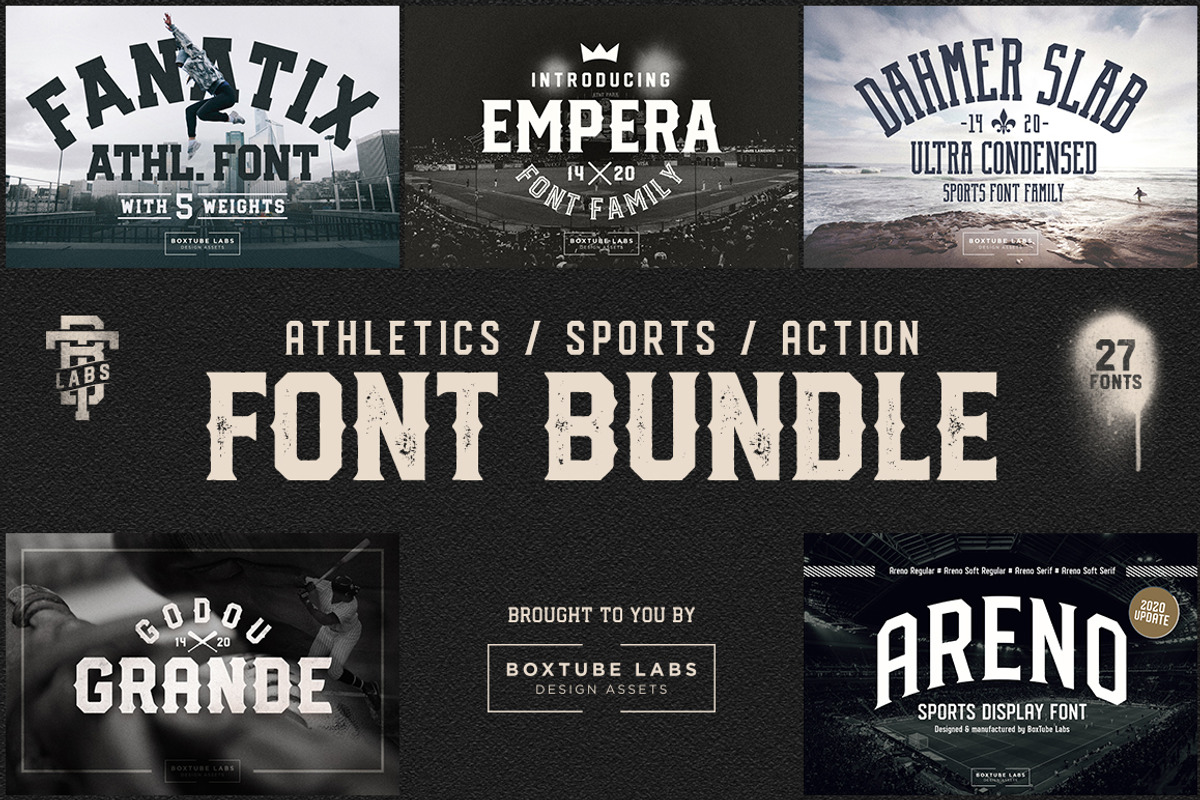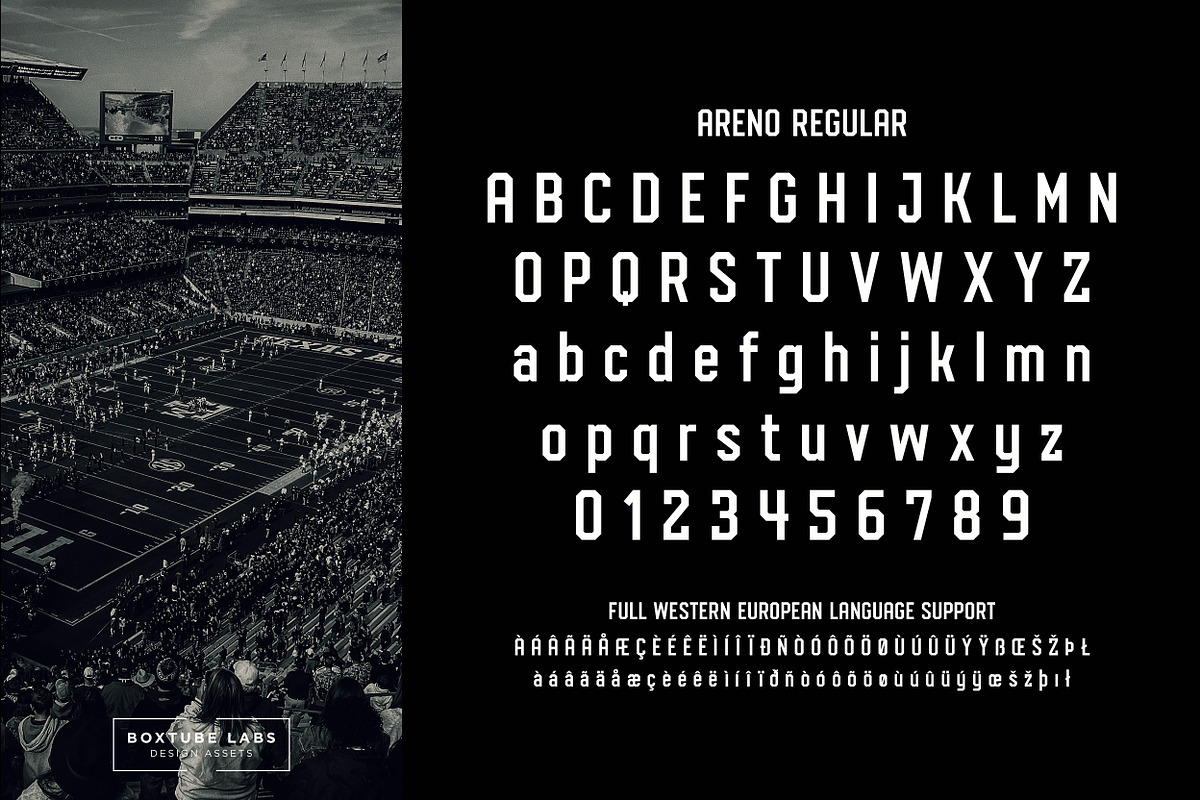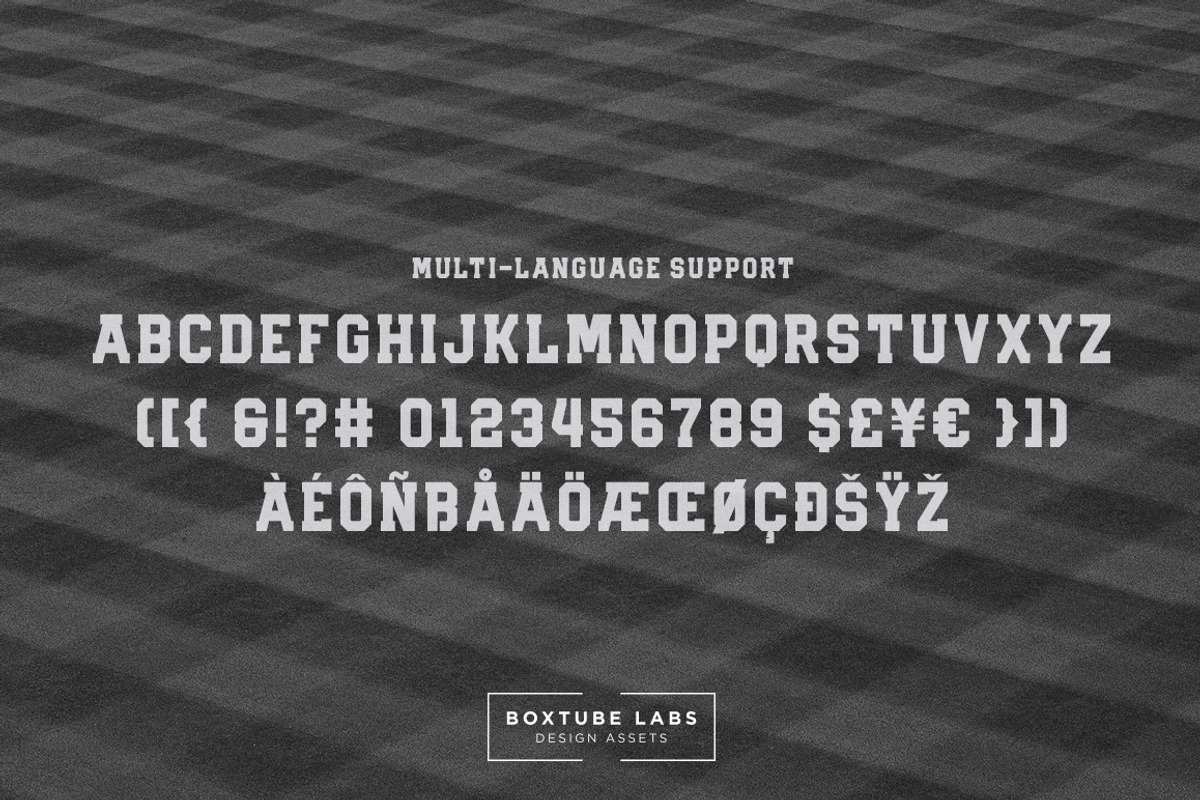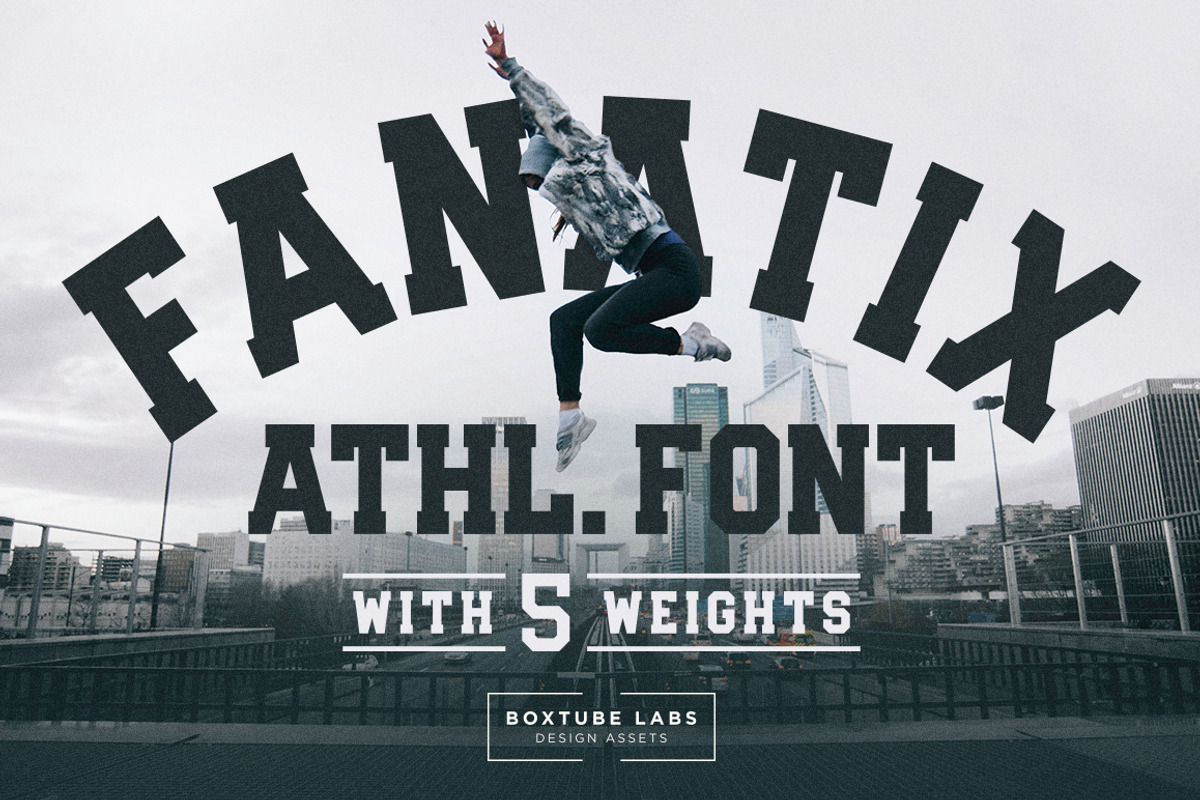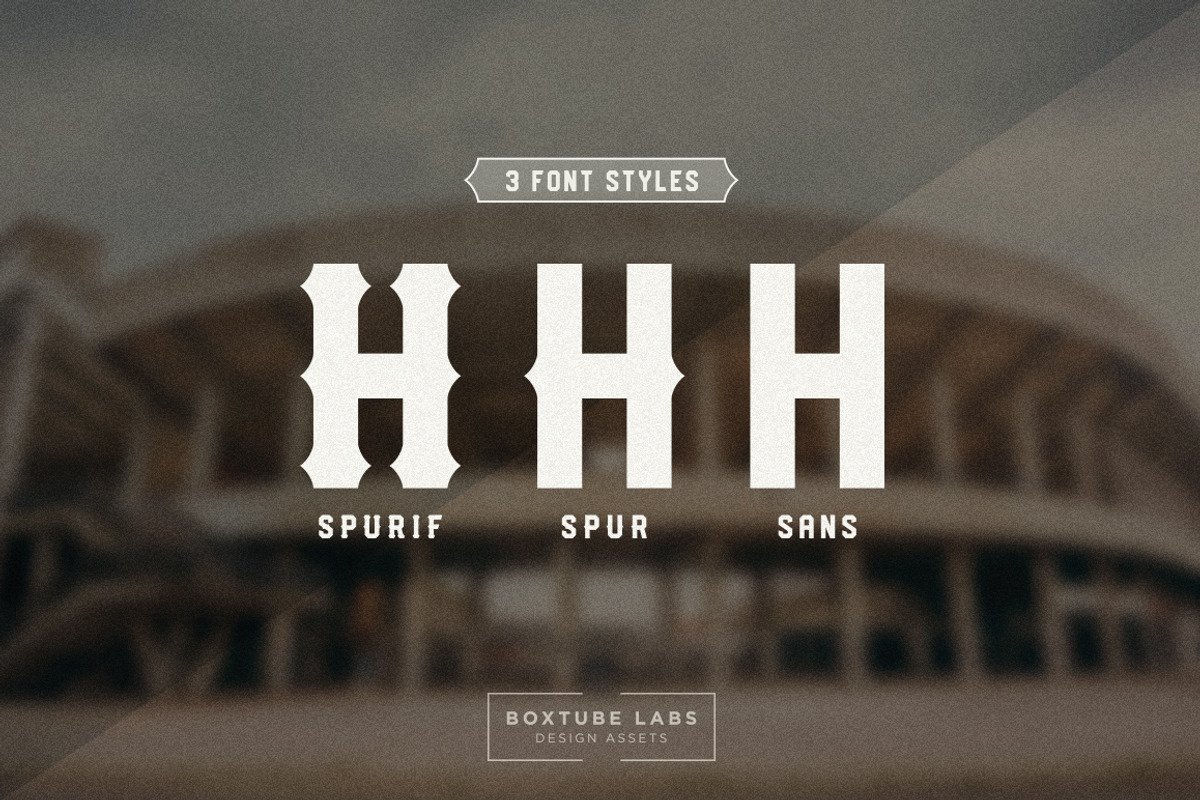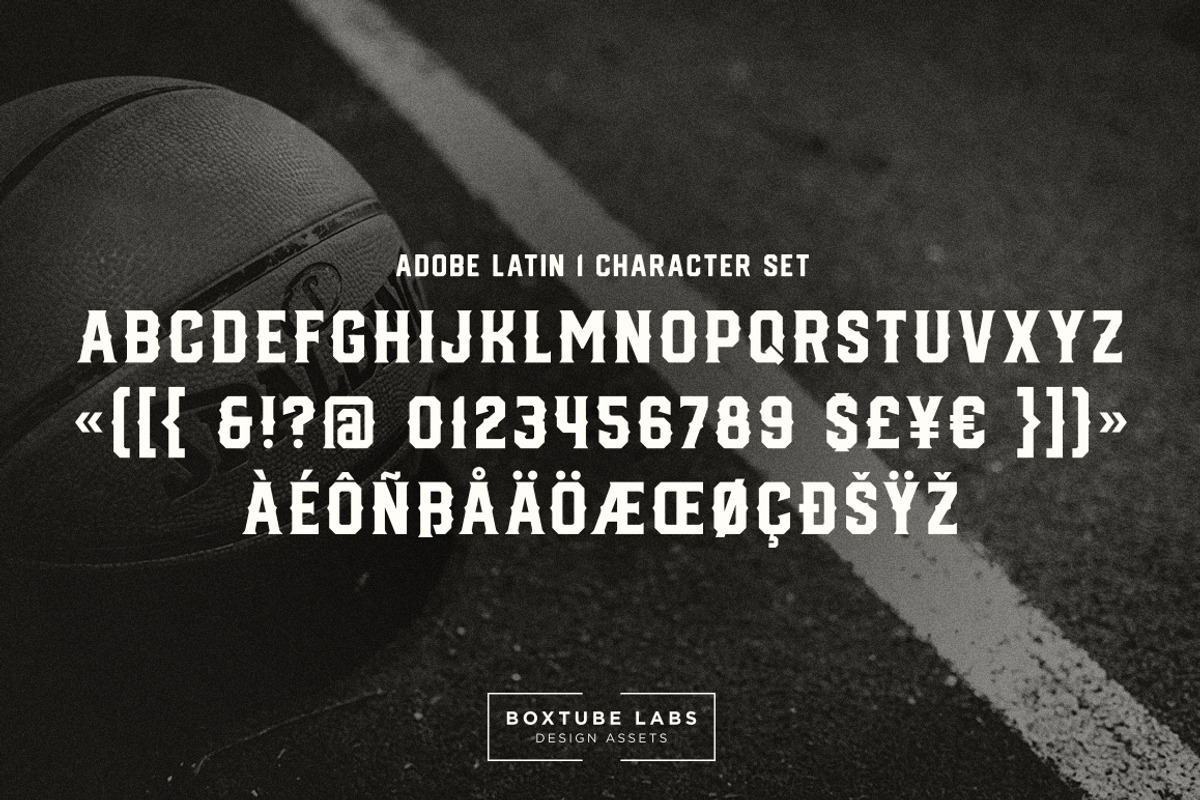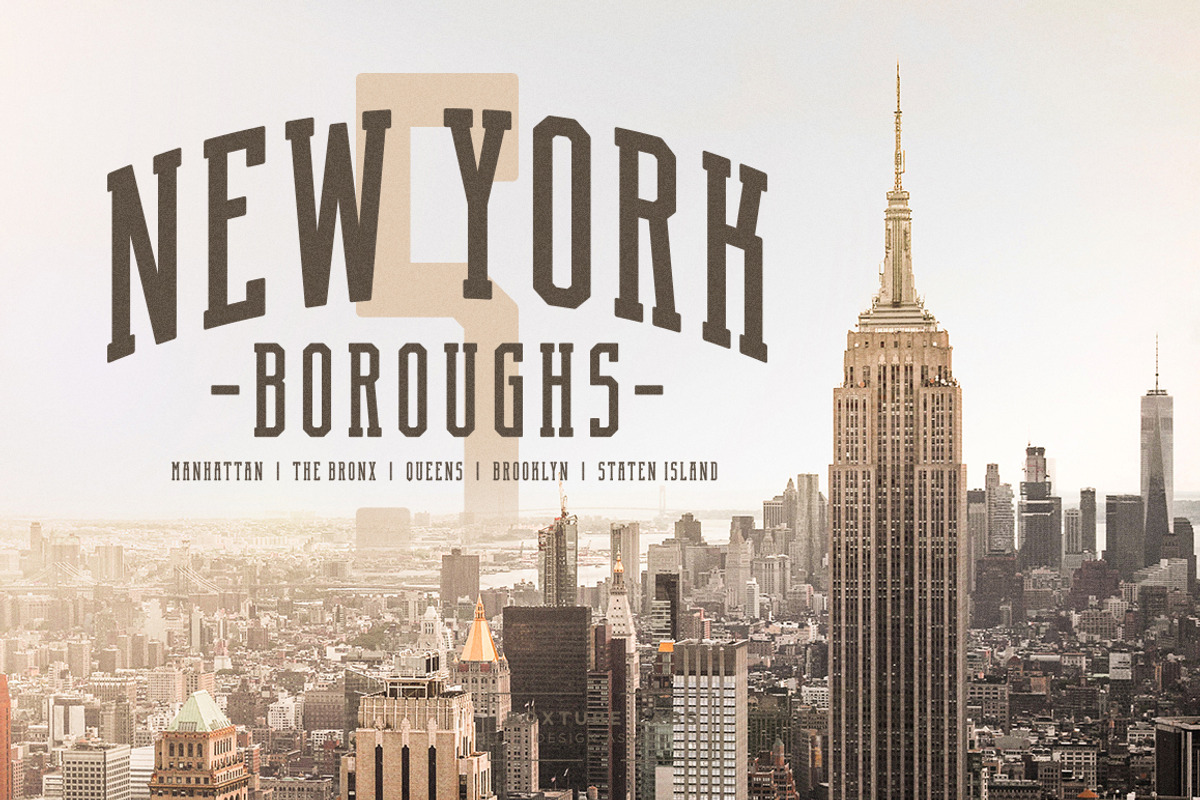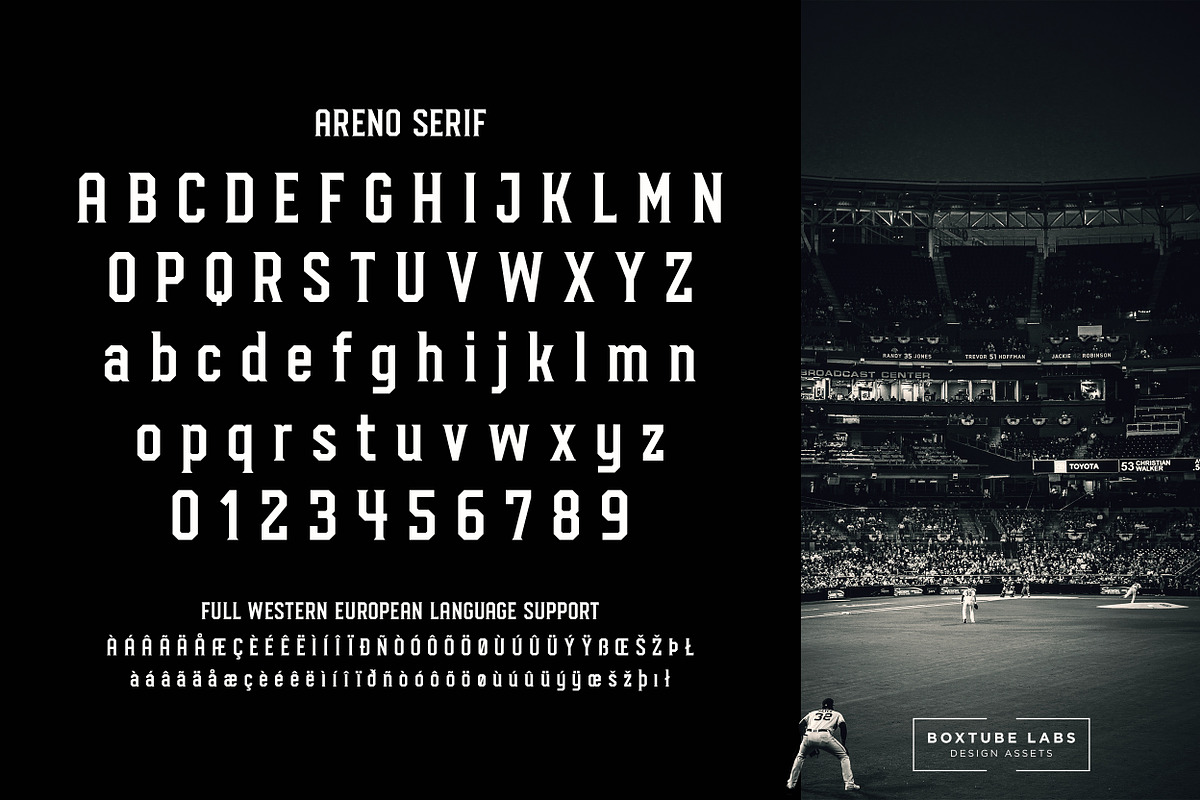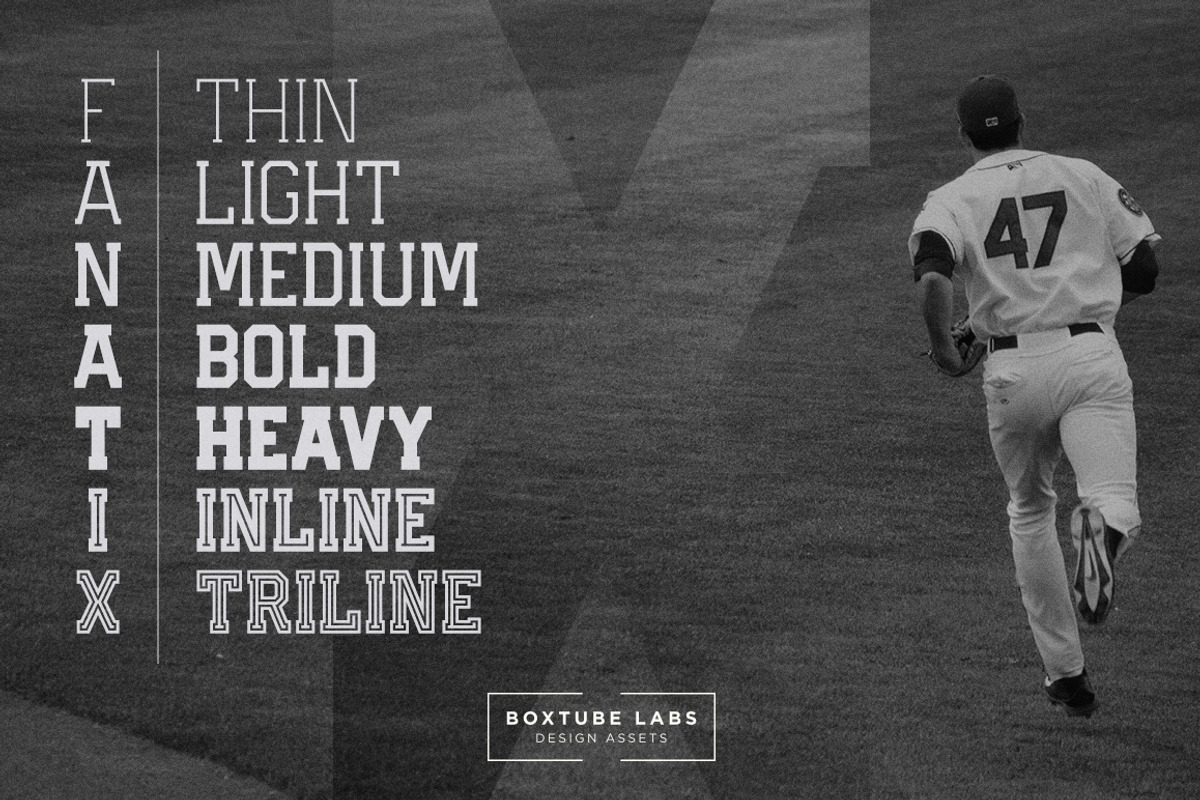
Sports Display Font Bundle BTL.1
BoxTube Labs presents the Sports Font Bundle BTL.1 - a collection of five sporty and athletic type families with a total of 27 unique fonts. This bundle features strong, confident and powerful typefaces designed to work great with sports logos, club branding, apparel applications, labels and more, including our top sellers Empera and Fanatix.
EMPERA – A fearless athletic font family with six creative styles for added flexibility and variation. https://creativemarket.com/boxtubelabs/1770556-Empera
FANATIX – A classic sports font family with a modern touch. https://creativemarket.com/boxtubelabs/1903256-Fanatix
GODOU GRANDE – A powerful and creative font family with three styles. https://creativemarket.com/boxtubelabs/1996072-Godou-Grande
DAHMER SLAB – An ultra condensed sports font family. https://creativemarket.com/boxtubelabs/1563142-Dahmer-Slab
ARENO – A classic sports display font with four styles. https://creativemarket.com/boxtubelabs/1417324-Areno-Font-Family